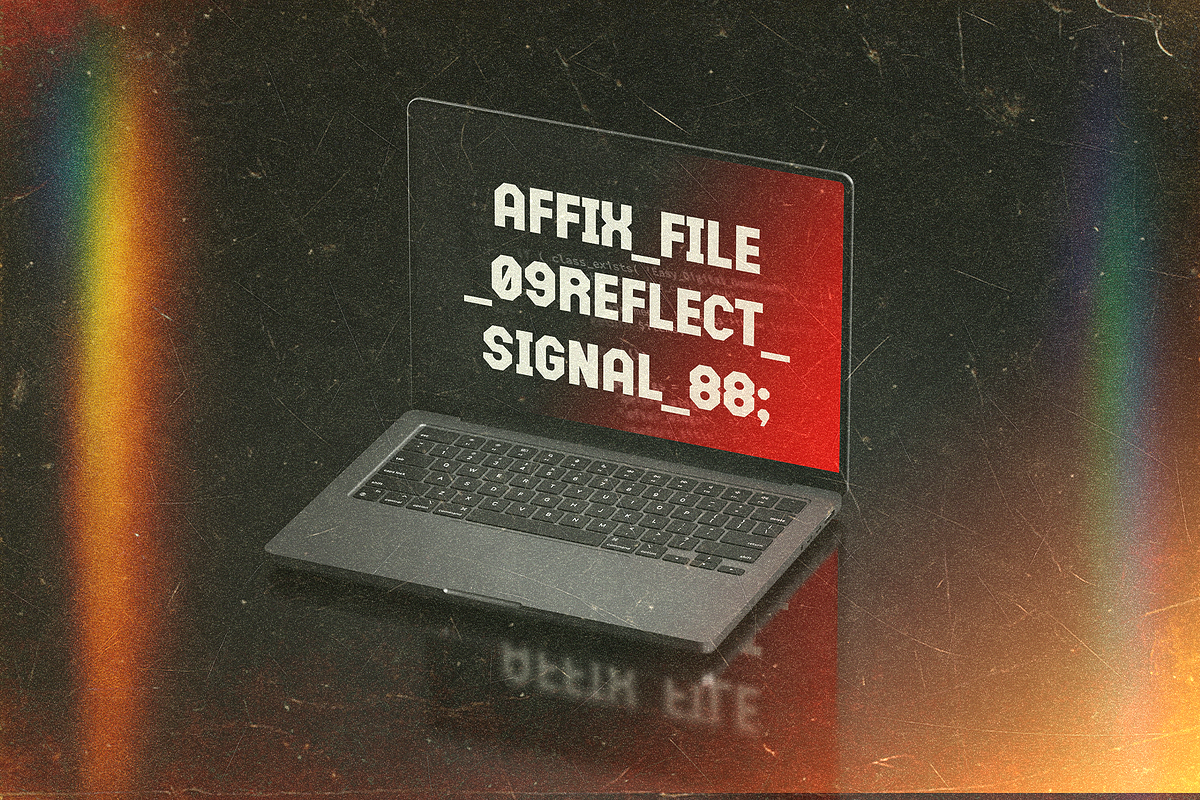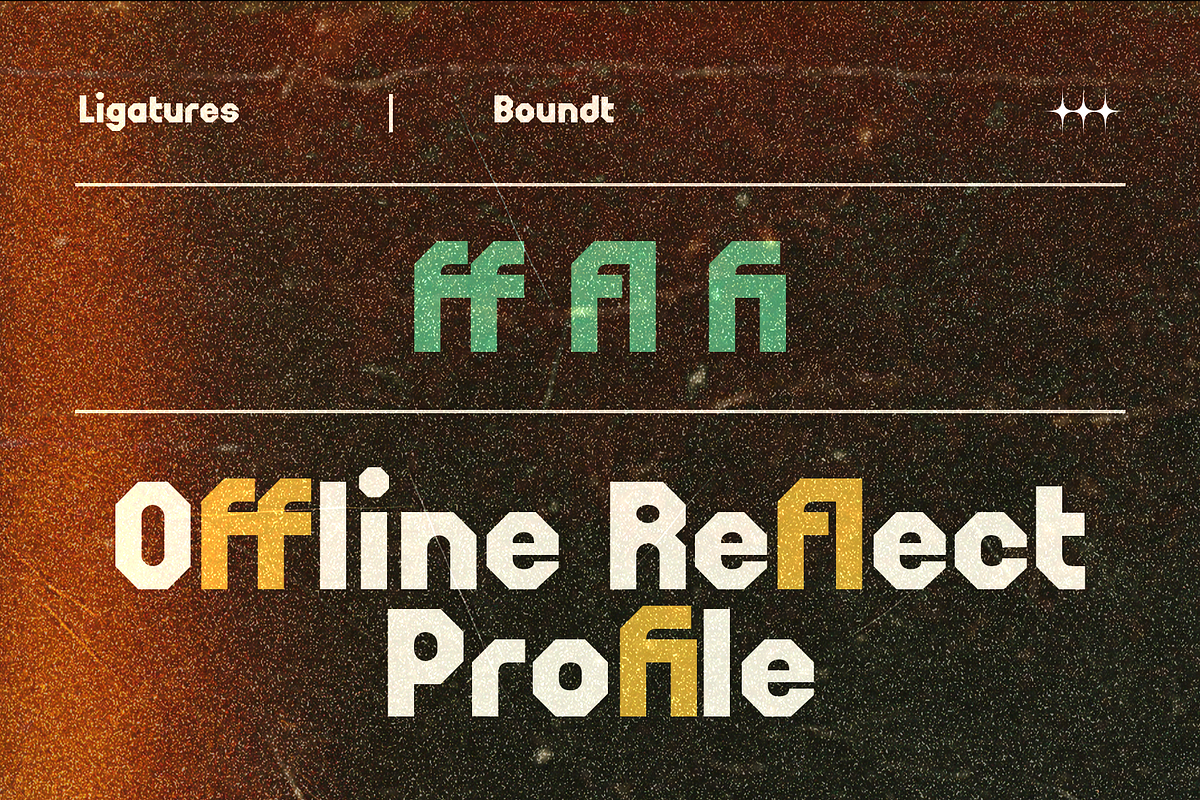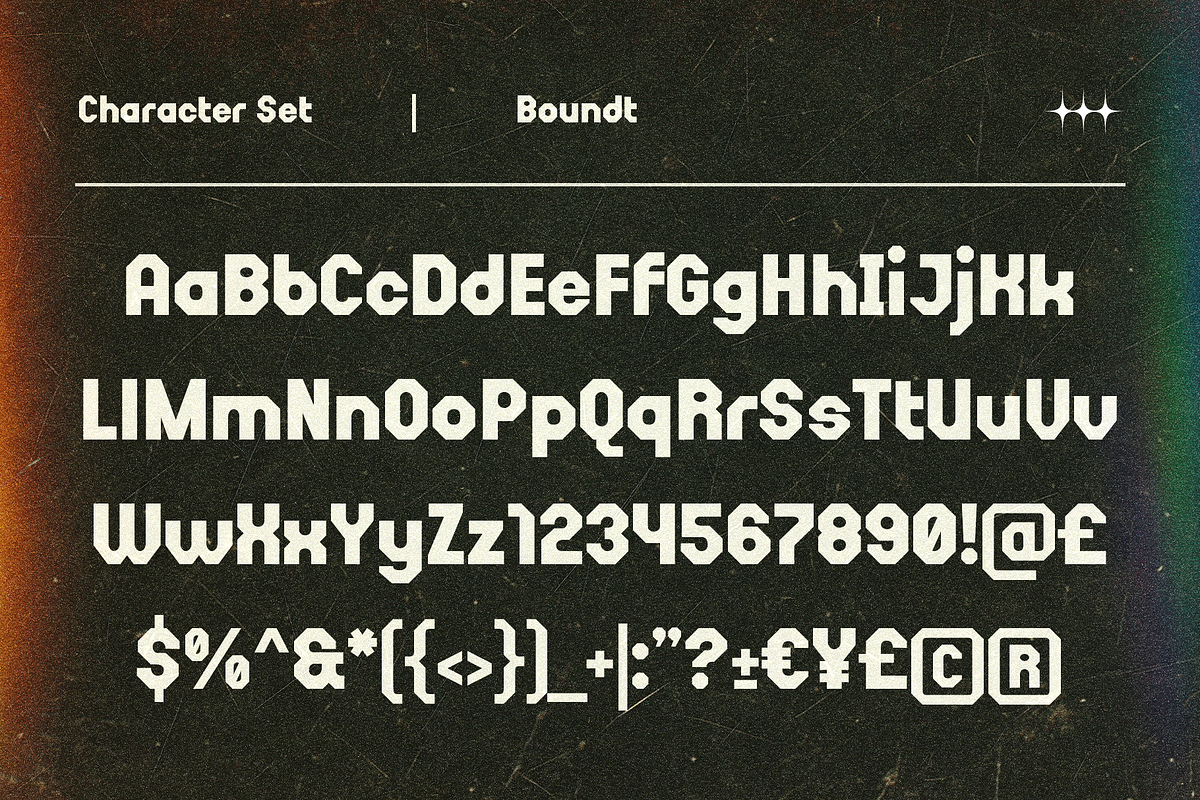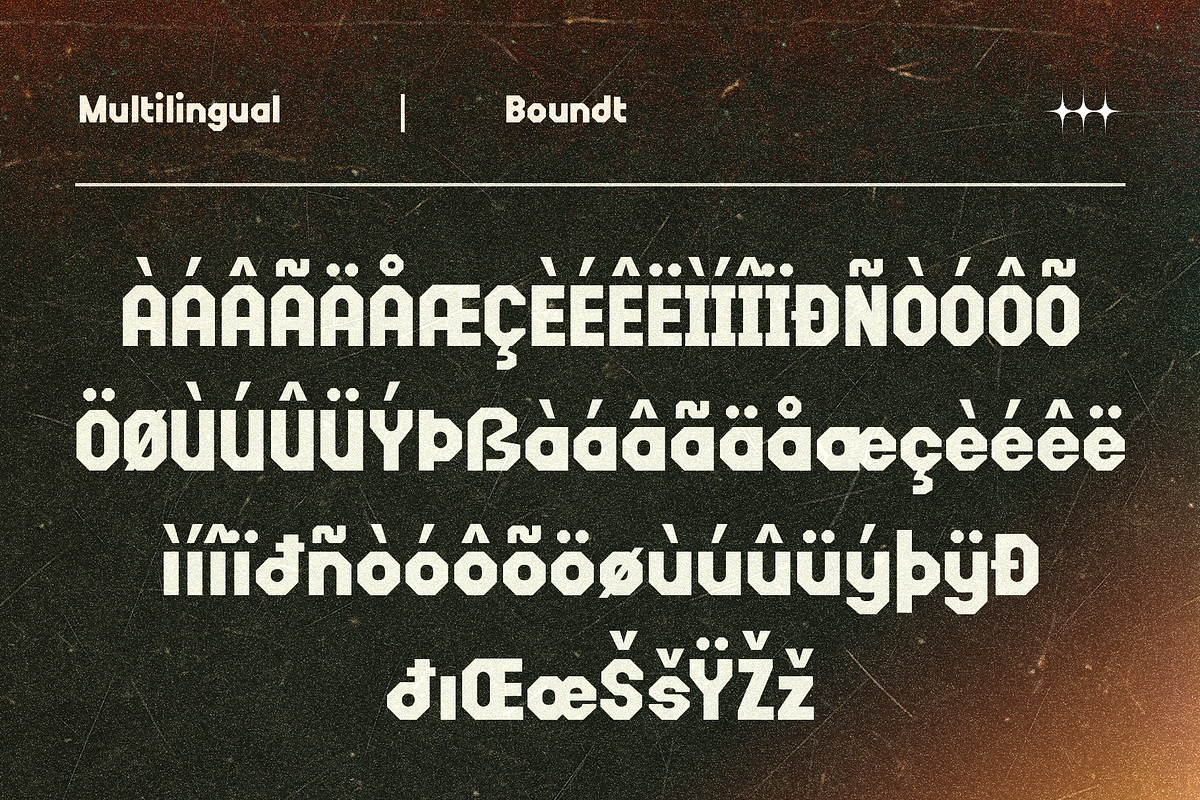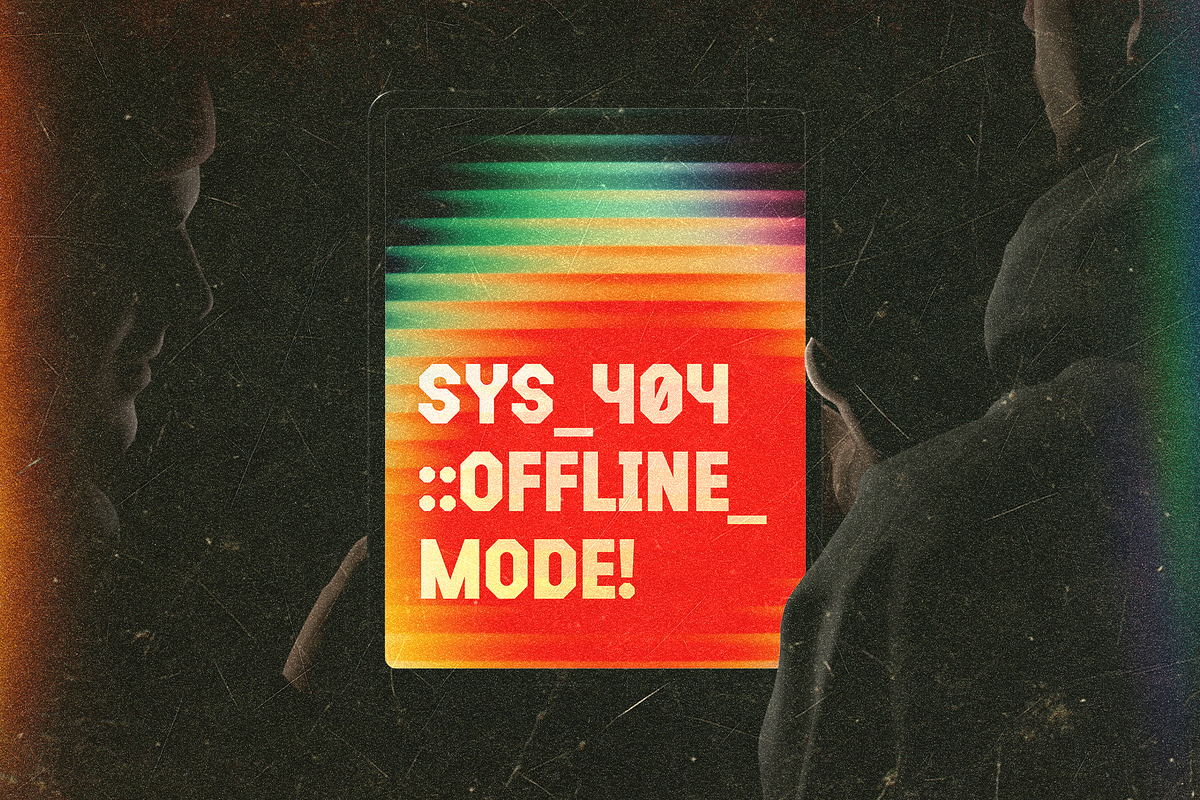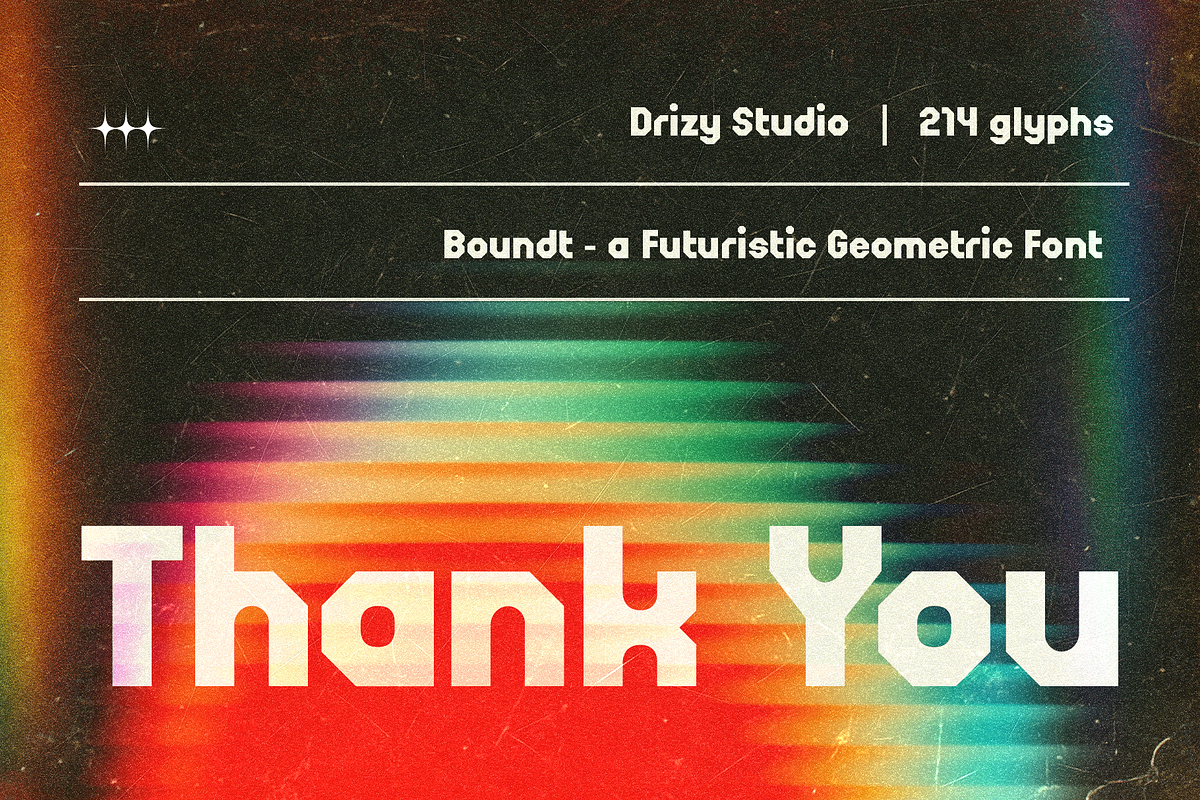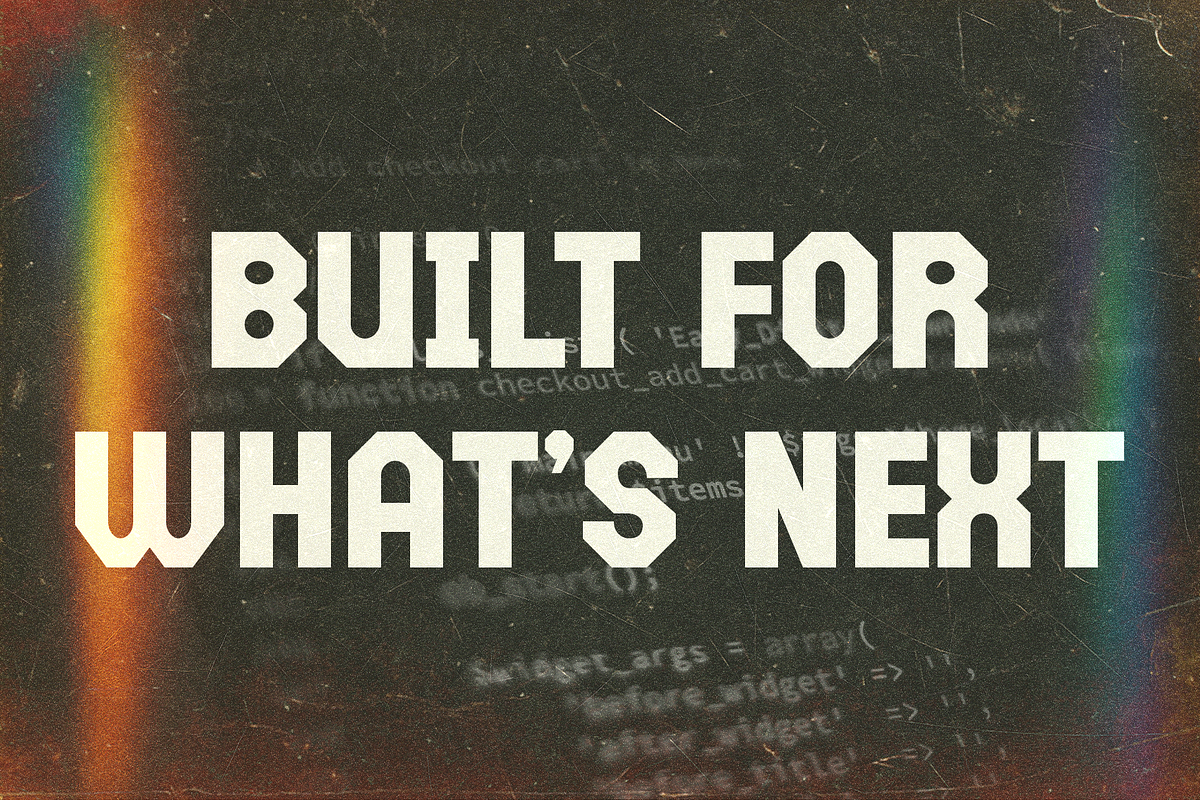
Boundt – Futuristic Geometric Font
Boundt is a futuristic geometric font built for bold visibility and modern communication. Inspired by broadcast graphics, digital interfaces, and forward-thinking technology, Boundt delivers a clean yet powerful presence through precise shapes and structured geometry.
With its strong architectural form and contemporary aesthetic, Boundt transforms typography into a statement of progress and precision.
Elevate and explore the design possibilities with this Geometric Broadcast Font!